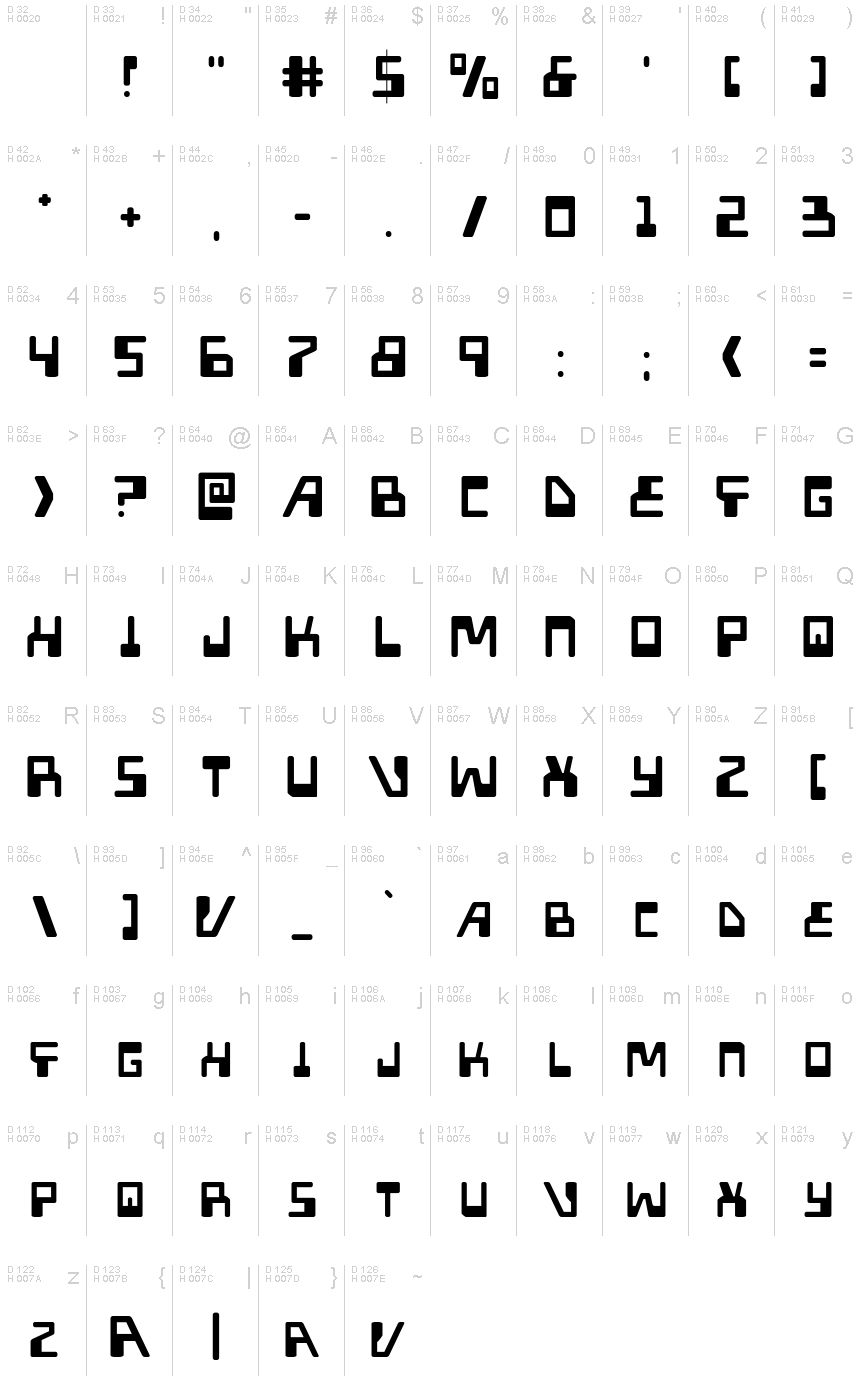
XPED Light
Xped Light by Iconian Fonts is a free retro-futurist caps display font with chunky, squared letters and softened corners. The caps feel like signage from an imagined arcade future - broad, blocky, and slightly modular, with cut-in joins and open shapes that keep the heavy forms from feeling static.
It fits naturally in sci-fi posters, game logos, synthwave packaging, title cards, and tech-themed cover lines where a free font needs a bold period mood instead of a neutral voice. Use it for short headlines, monograms, and badge-style marks too, since the letters are built from simple, memorable silhouettes that hold together as graphic shapes.